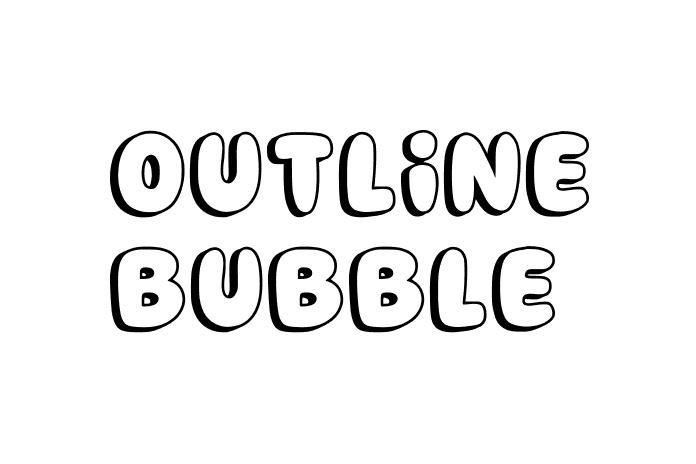
Comic Boom Bubble_DEMO
We are going to introduce another 3D font that has a beautiful look known as Comic Boom Bubble_DEMO Font. This font has more than 50 attractive look fancy characters including punctuations, empty blocks, numbers, uppercase letters, and lowercase letters. It was designed in so fantastic shape.
Reason to Use Comic Boom Bubble_DEMO Font
You can use this font to make designs for cartoon movie, banner designs, posters, birthdays, children’s stories, editing purposes for gaming videos, and other types of designs.
Font designer Fontsandfashion
Typeface classification 3D